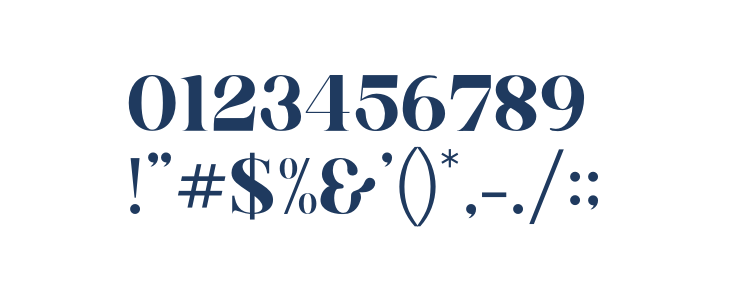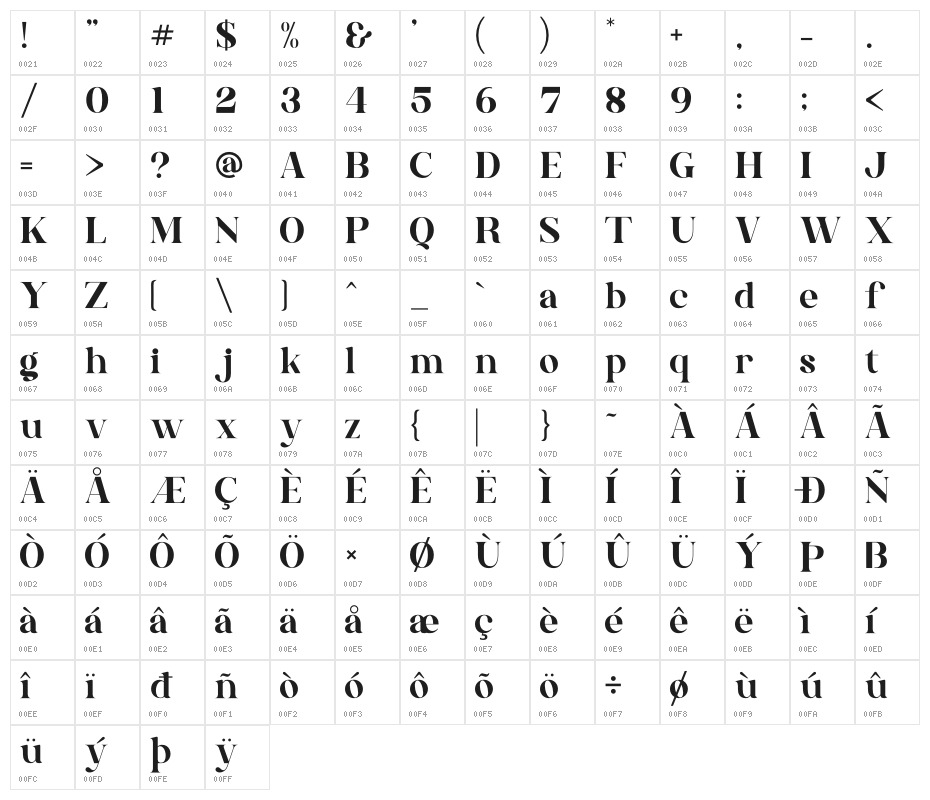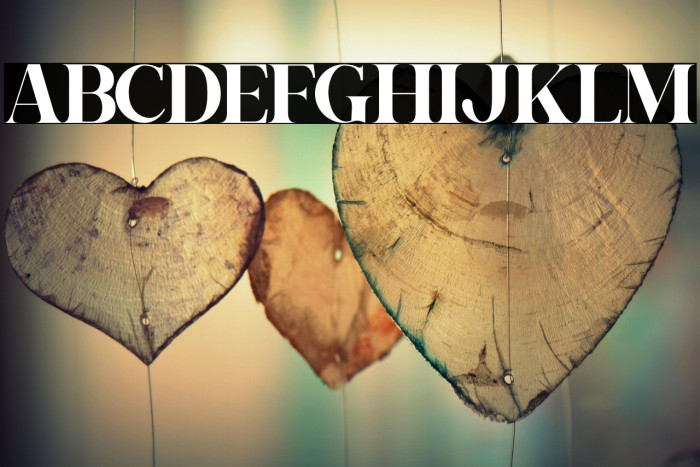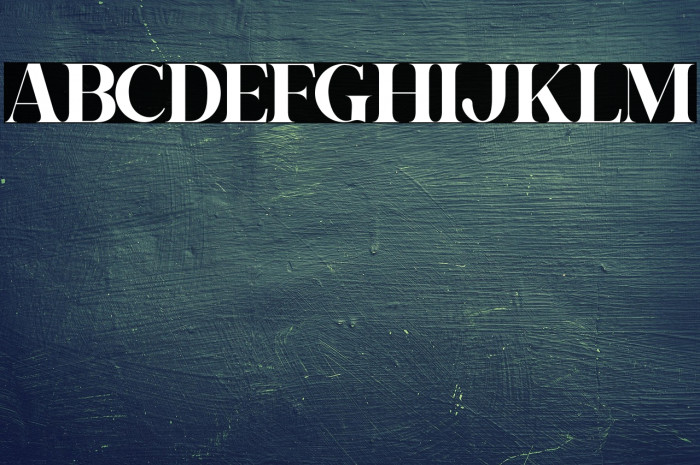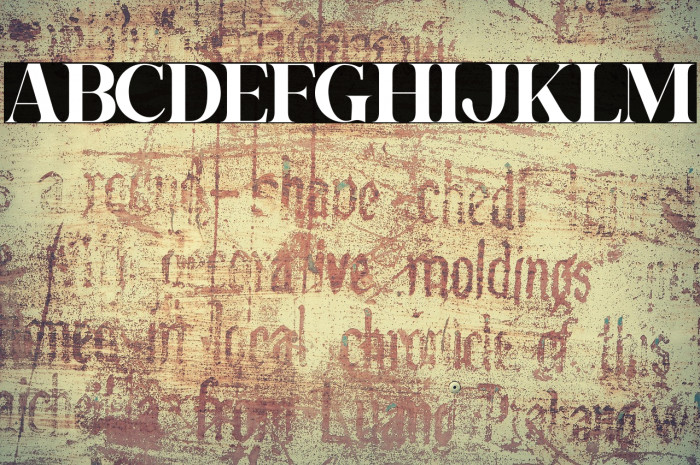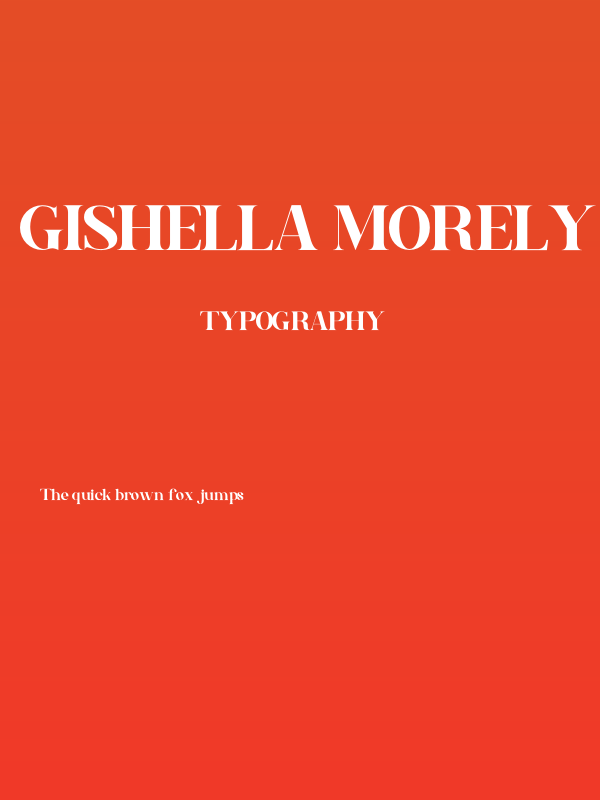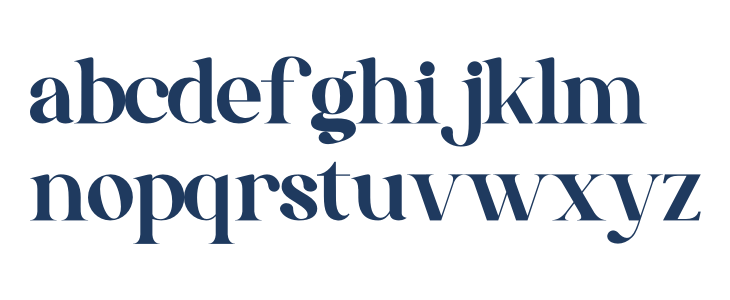
Gishella Morely Font
Gishella Morely Description
This font features a bold and elegant serif style with high contrast between thick and thin strokes, giving it a sophisticated and classic appearance. The uppercase letters are strong and commanding, while the lowercase letters maintain a graceful flow. The numerals are distinct and well-balanced, complementing the overall aesthetic. Special characters are designed with a similar attention to detail, ensuring consistency across all glyphs. This font is ideal for projects that require a touch of elegance and formality.
| Use Case | Headlines, Logos, Editorial design |
| Proposed Projects | Perfect for luxury branding, editorial design, invitations, and high-end product packaging. |